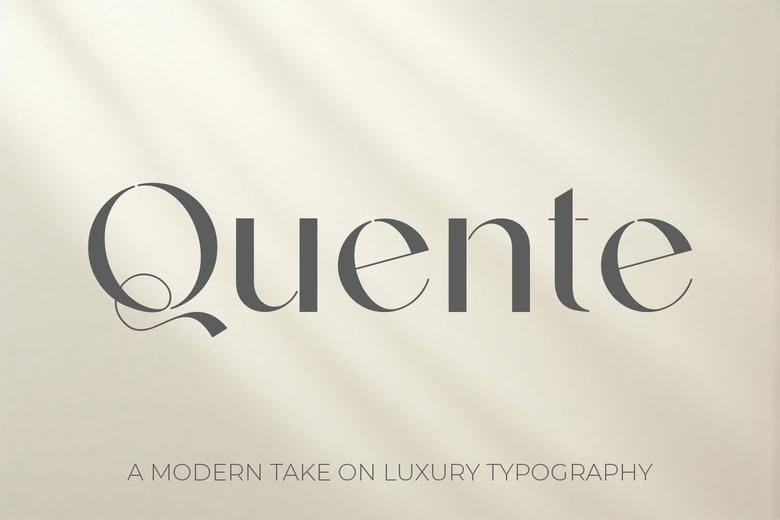
Quente Font
Quente is a sans serif font that is a modern interpretation of traditional luxury. It is the first option in luxury magazine mastheads, high-end cosmetic branding, and minimalist logo designs to high-end agencies. Ideal Use: Fashion editorials, luxury perfume packaging, and branding of a boutique hotel.
Quente Sans Serif Font